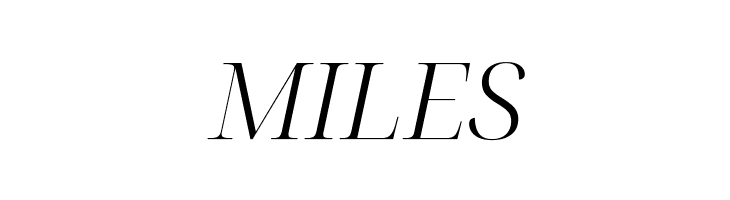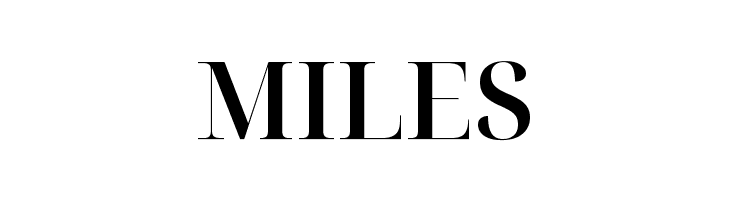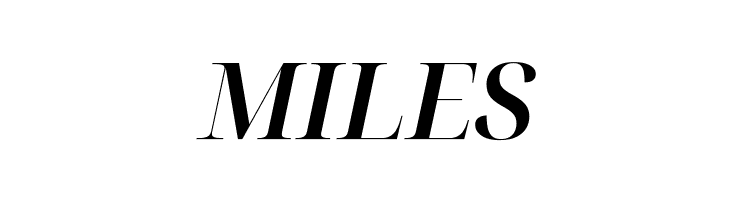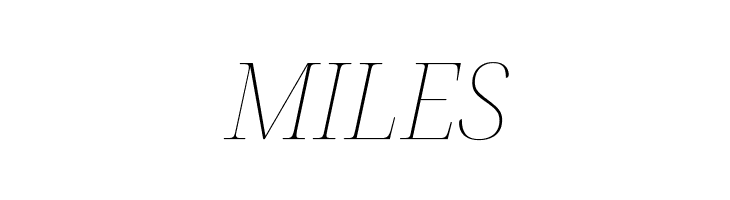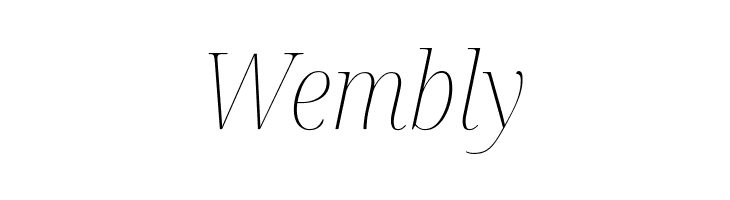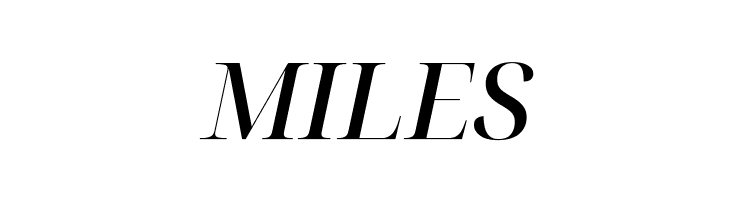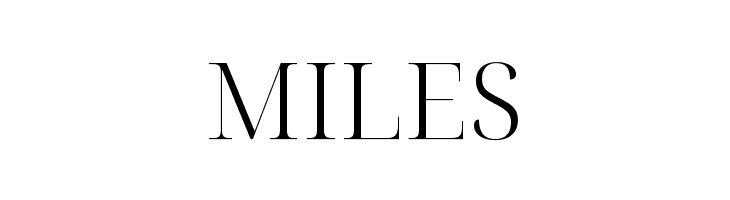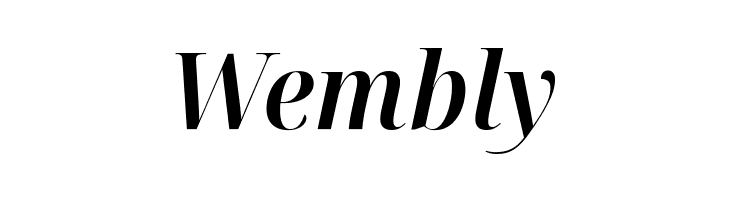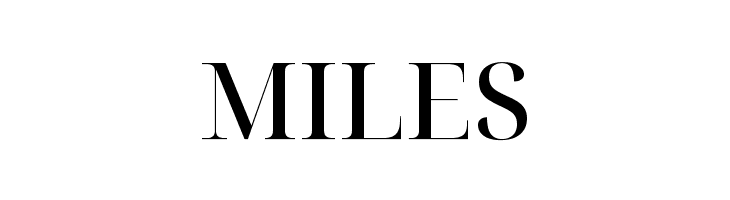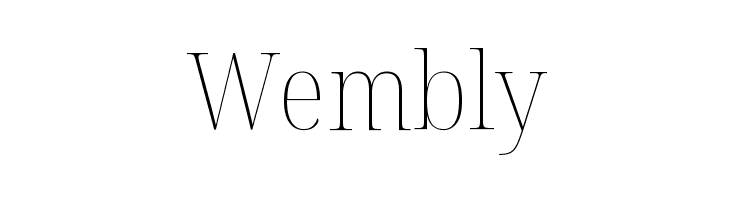
An elegant, extra light serif font with italic styling and refined strokes.
• Noto Serif Display Italic
An elegant serif italic font with medium contrast and refined style.
• Noto Serif Display Light
A refined serif font with high contrast and elegant, sharp serifs.
• Noto Serif Display Light Italic
Elegant serif font with a light, italic style and high contrast.
• Noto Serif Display Medium
A refined serif font with medium weight and elegant proportions.
• Noto Serif Display Medium Italic
Elegant serif font with italic style and medium weight.
• Noto Serif Display Regular
A classic serif font with elegant strokes and moderate contrast, ideal for traditional and sophisticated designs.
• Noto Serif Display SemiBold
A high-contrast serif font with elegant, bold strokes and refined details.
A refined serif typeface with semi-bold weight and italic style, offering elegance and readability.
• Noto Serif Display SemiCondensed
A refined serif font with semi-condensed letterforms and elegant contrast.
A bold, semi-condensed serif font with high contrast and elegant serifs.
An elegant, high-contrast serif font with a semi-condensed, italic style.
A bold, semi-condensed serif font with high contrast and elegant serifs.
A bold italic serif font with a semi-condensed style and medium contrast.
A bold, semi-condensed serif font with high contrast and elegant style.
An elegant, extra bold, semi-condensed italic serif typeface with a modern twist.
A refined serif font with a semi-condensed, extra light style.
An elegant serif typeface with a semi-condensed, extra light italic style and high contrast strokes.
A clean, condensed font with a modern yet classic style.
A bold, condensed serif font with high contrast and tight spacing.